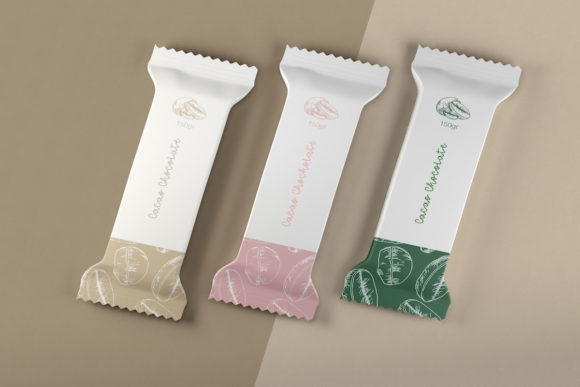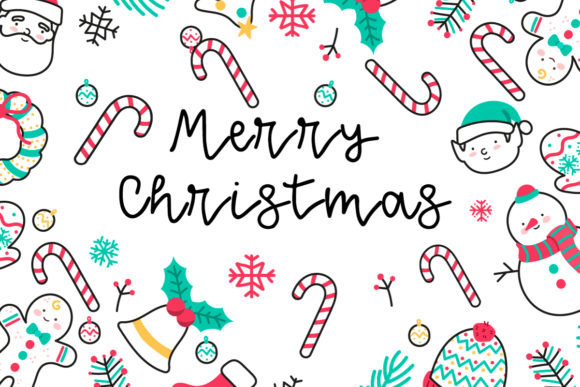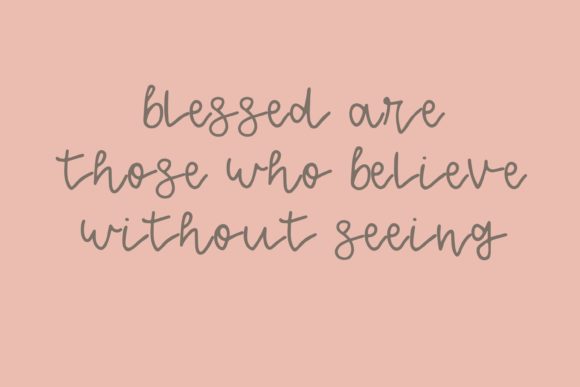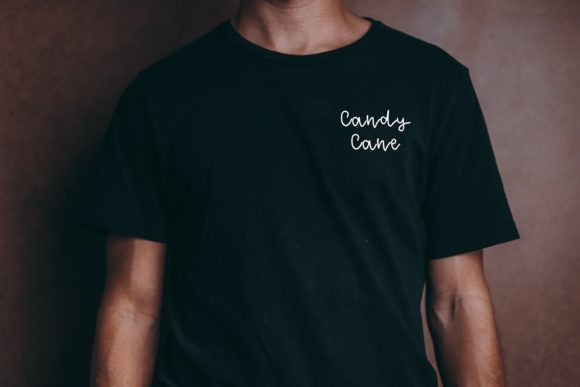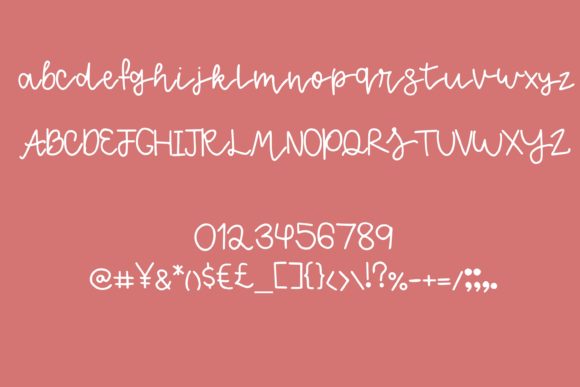
The Sweetest Font You’ll Fall in Love With: A Deep Dive into Candy Cane
I’ll never forget the design project that led me to discover the Candy Cane font. I was working on a festive holiday campaign, and my client requested a font that was both playful and elegant. As I scrolled through my font library, I stumbled upon Candy Cane, and it instantly stole my heart. Its quirky, relaxed handwritten style was exactly what I needed to bring my design to life.
An Honest Review of Candy Cane
So, what makes Candy Cane so special? Let’s dive into the good stuff and a few quirks I’ve discovered.
- ✨ Versatility: Candy Cane’s simple and neat style makes it incredibly versatile and fitting for a wide variety of designs.
- ✅ Readability: The font is easy to read, even at smaller sizes, making it perfect for body text or headings.
- 💕 Aesthetics: The quirky and relaxed handwritten style adds a touch of personality to any design.
- 🤔 Limited formal applications: While Candy Cane is amazing for informal designs, it might not be the best fit for more formal or corporate projects.
- ⚠️ Kerning issues: As with any font, you might encounter some kerning issues, especially when using it at larger sizes or in combination with other fonts.
The Backstory Behind Candy Cane
While the actual designer of Candy Cane might be a mystery, it’s easy to imagine the inspiration behind this beautiful font. Perhaps a designer, fueled by holiday cheer and a love for sweets, created Candy Cane as a way to capture the whimsy and playfulness of the season. Whatever the story, Candy Cane has become a beloved font among designers and crafters alike.
Q: What makes Candy Cane so versatile?
A: Candy Cane’s simple and neat style makes it incredibly versatile and fitting for a wide variety of designs, from festive holiday projects to more casual branding materials.
Q: Can I combine Candy Cane with other fonts?
A: Absolutely! Candy Cane pairs well with a variety of fonts. Experiment with different combinations to find the perfect match for your design.